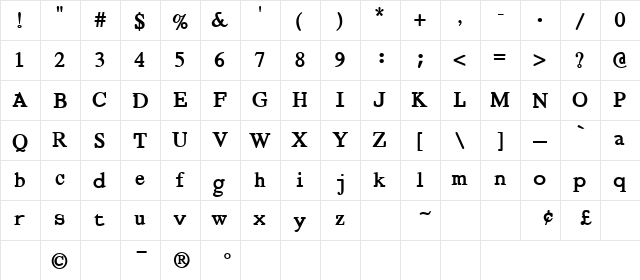
Bold Regeneration X Regular
Design Context for Bold Regeneration X Typeface
Bold Regeneration X is a composed and adaptable typeface that performs quietly and consistently across a wide range of design contexts. Its bold stroke weight gives it real presence on the page.